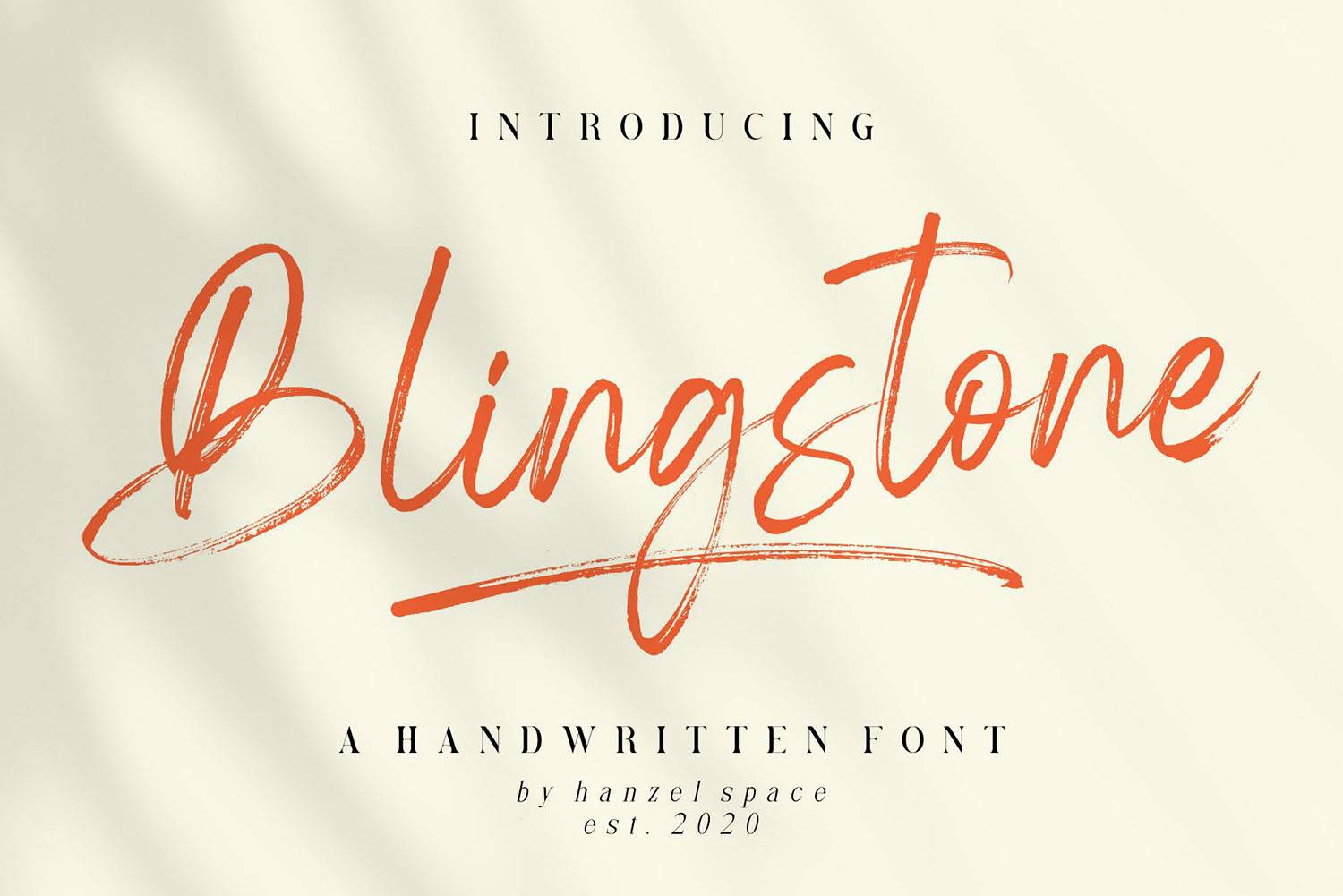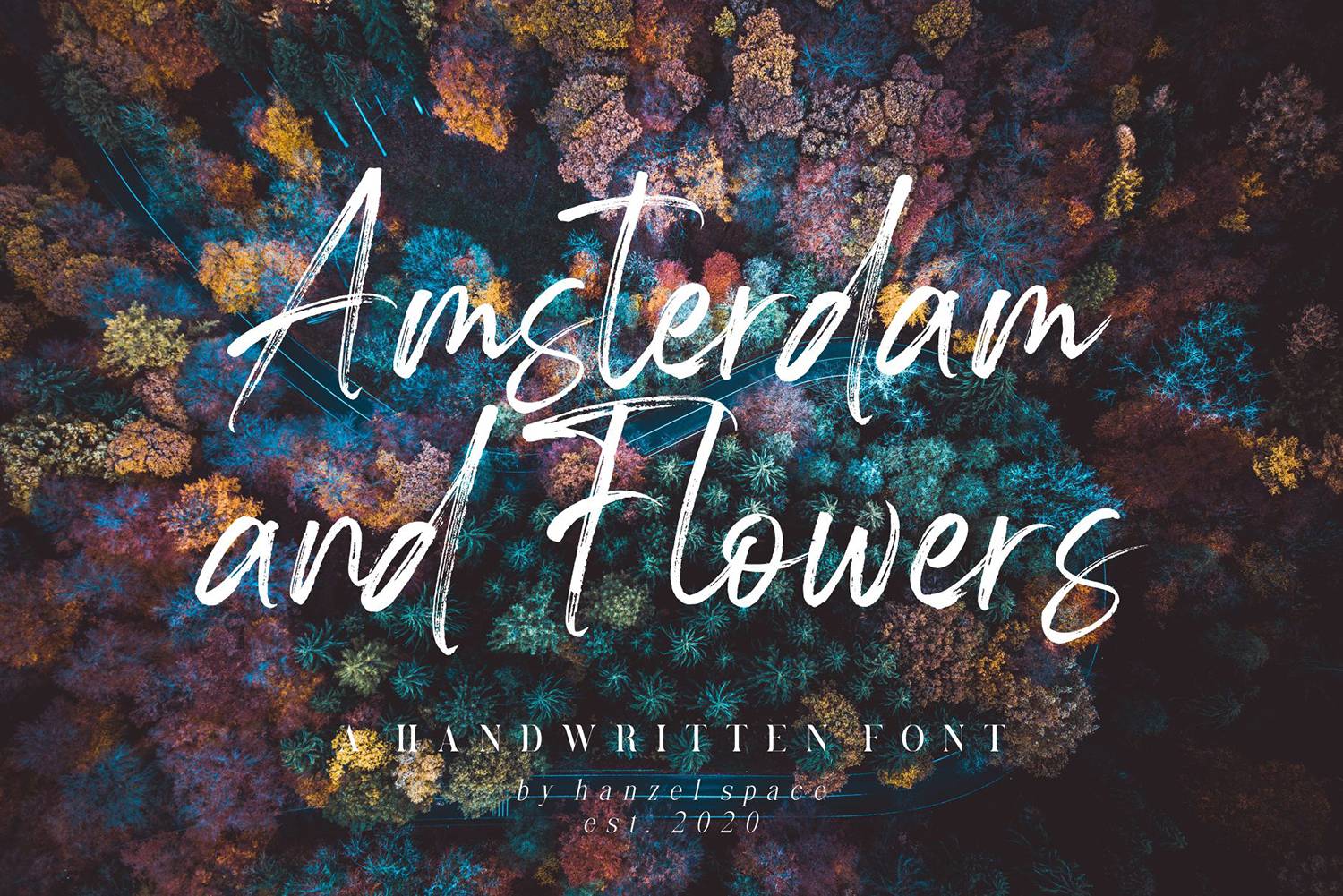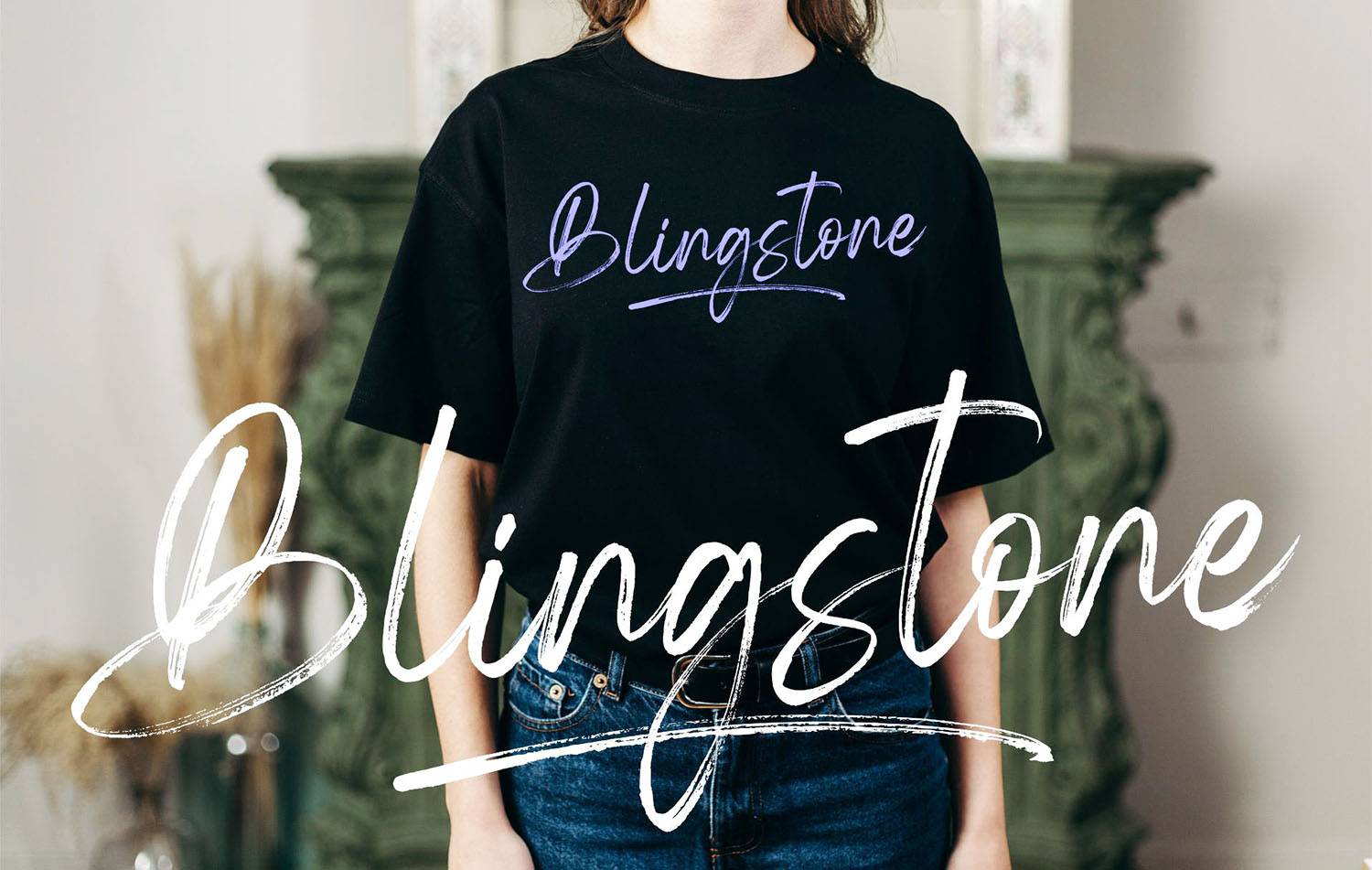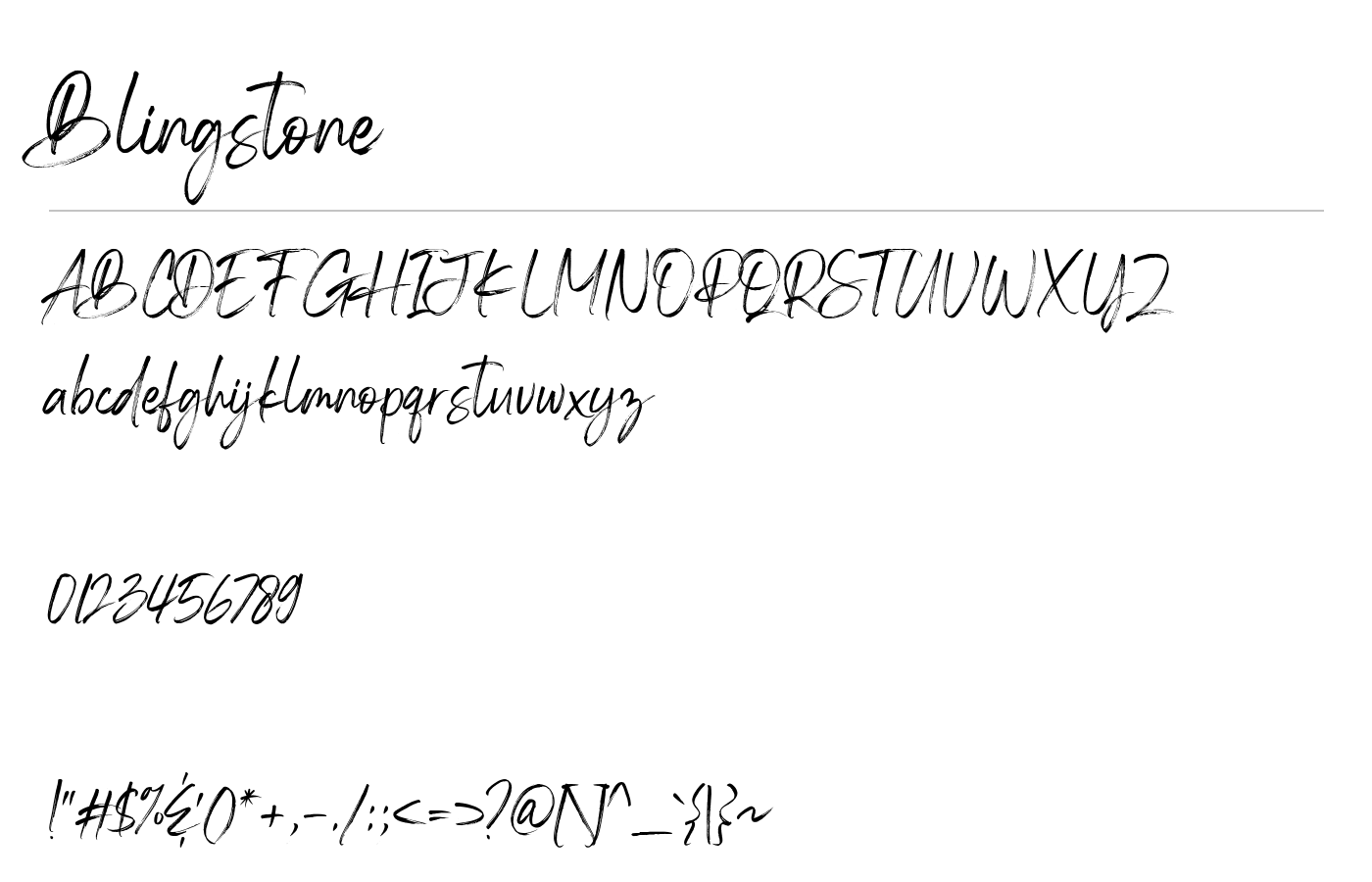
Blingstone is a stylish handwritten script font featuring a delicate, brush-like texture that brings an organic and personal touch to designs. Its slender, flowing letterforms with subtle irregularities convey elegance and creativity, making it perfect for invitations, branding, and artistic projects that seek a sophisticated yet approachable feel. This font works well in contexts where a natural, handcrafted aesthetic enhances the emotional connection with the audience.
Blingstone Font
About Blingstone Font
| Font family | Blingstone Font |
| Designer | Hanief Farandi |